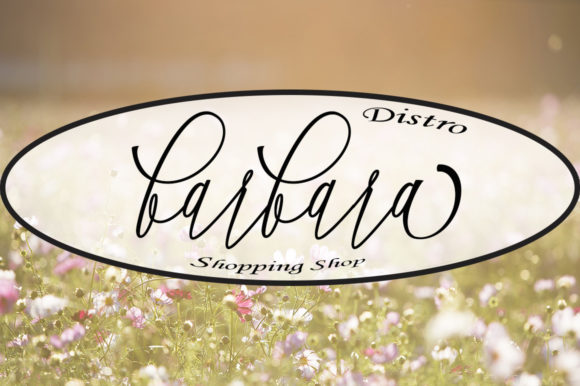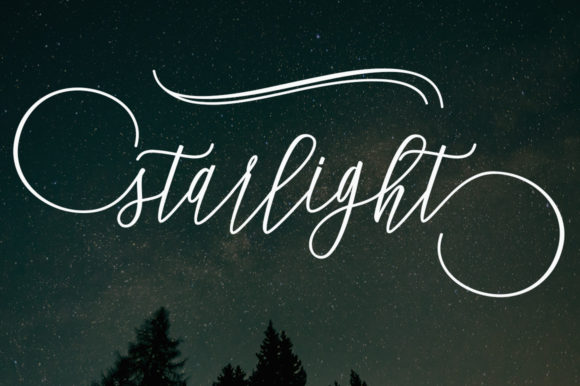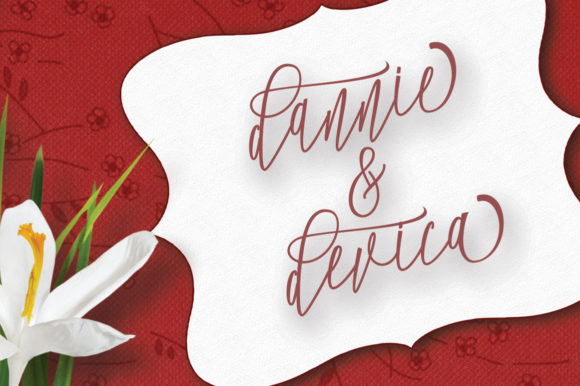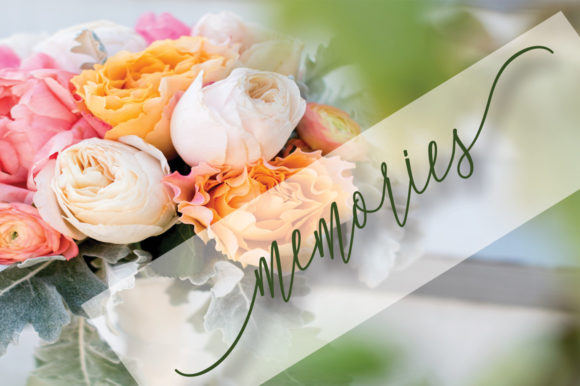
Remember Font
About Remember Font
Remember is a beautiful calligraphic script font that will awaken a poetic and artistic vibe in your design projects! Unique and stylish, this font is a wonderful addition to your fonts library! This font is PUA encoded which means you can access all of the glyphs and swashes with ease!